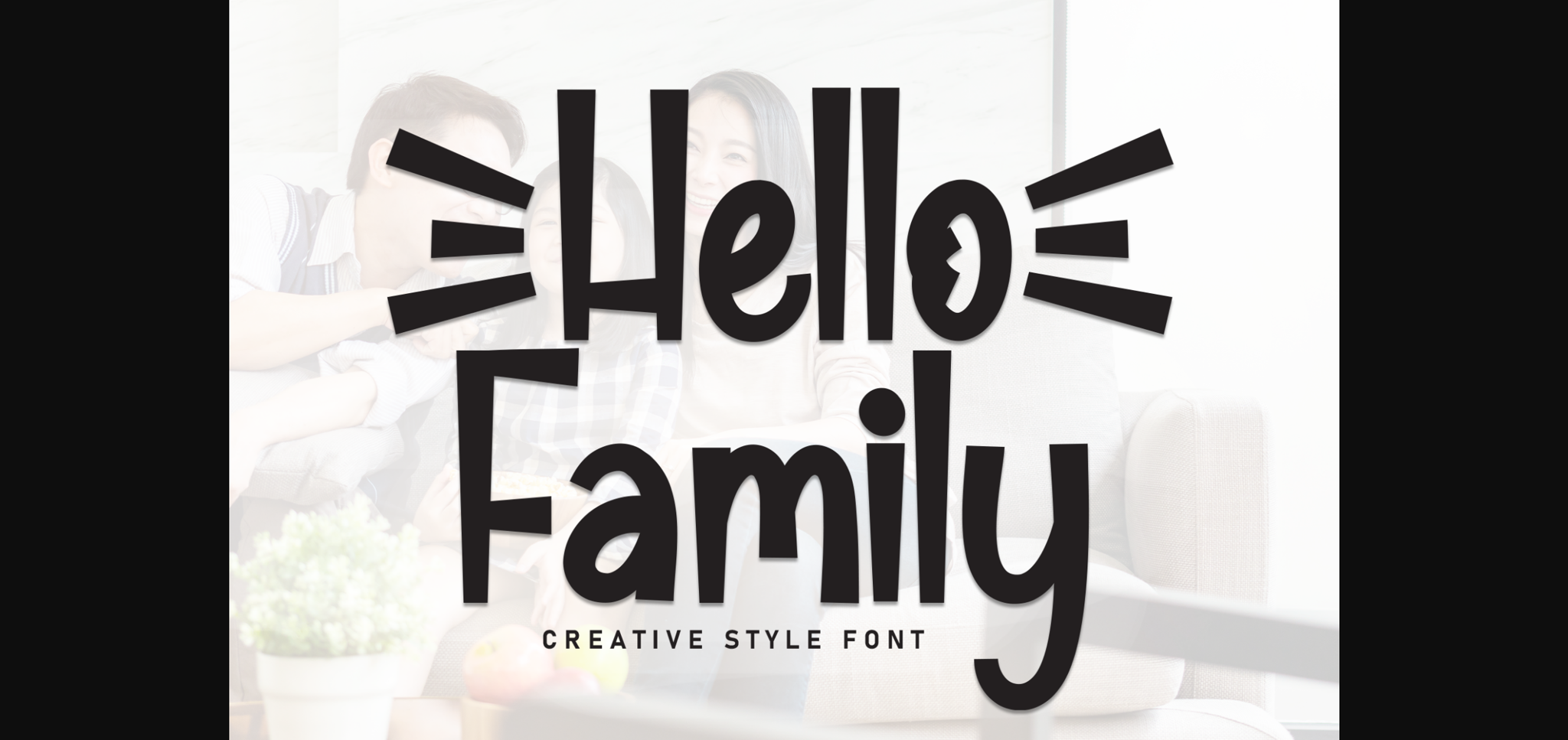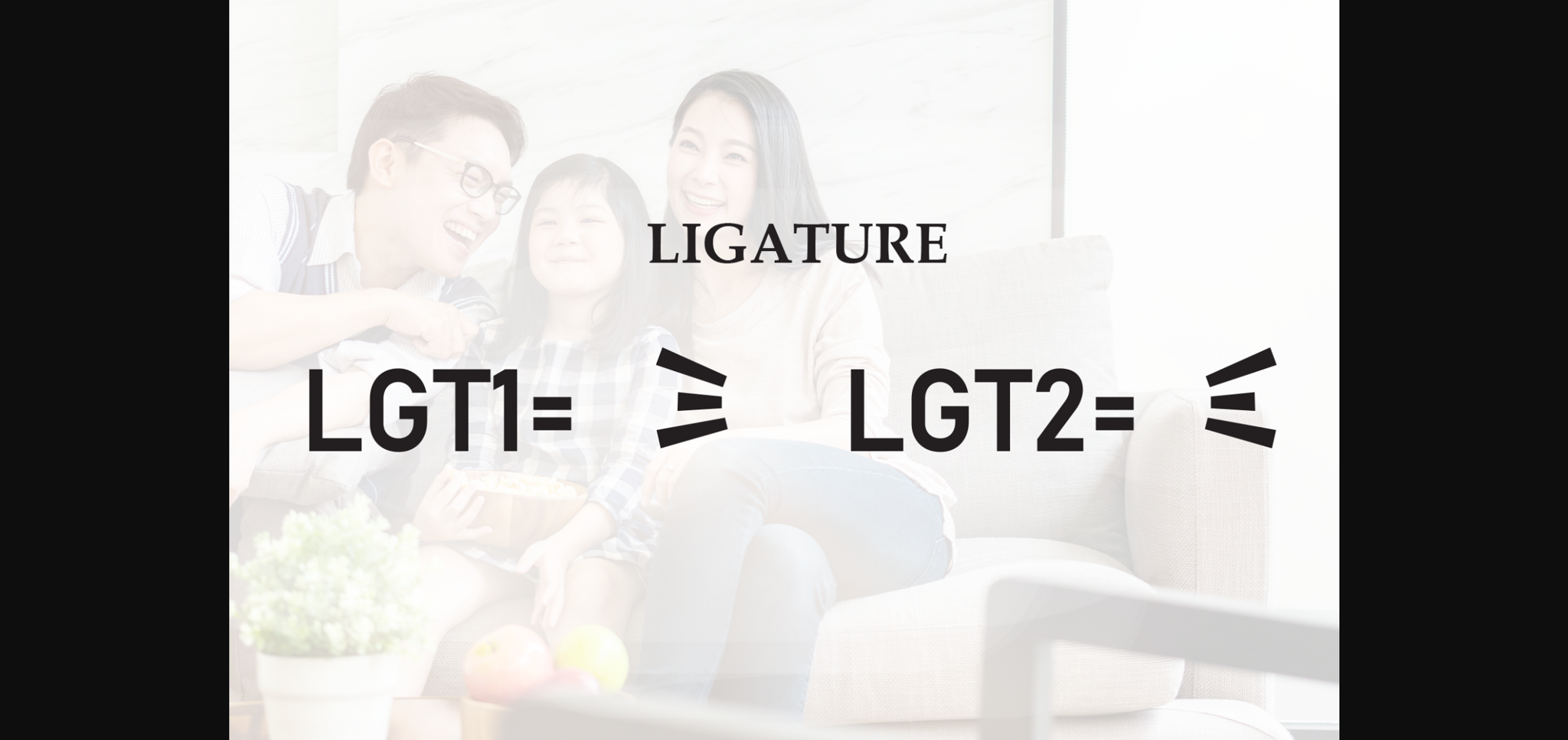
About Hello Family Font
Presenting a charming and inviting sans-serif font that effortlessly brings a dash of sweetness and friendliness to your designs. Its endearing and joyous characteristics make it a wonderful choice for crafting wedding invitations, endearing cards, or any other design that could benefit from a delightful touch. Immerse your audience in a world of playful warmth with this adorable font.